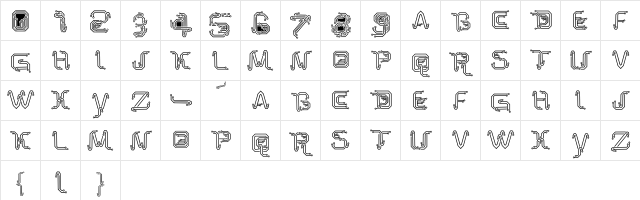
Park Tech CG Light Regular
Design Context for Park Tech CG Light Typeface
Park Tech CG Light has a distinctly futuristic character, with geometric precision and clean angles that feel at home in technology, gaming, and sci-fi contexts. Its slender proportions lend an understated elegance to any composition.
Pro Tip: Try Park Tech CG Light with generous letter-spacing in UI labels and navigation — the geometric forms benefit from room to breathe.